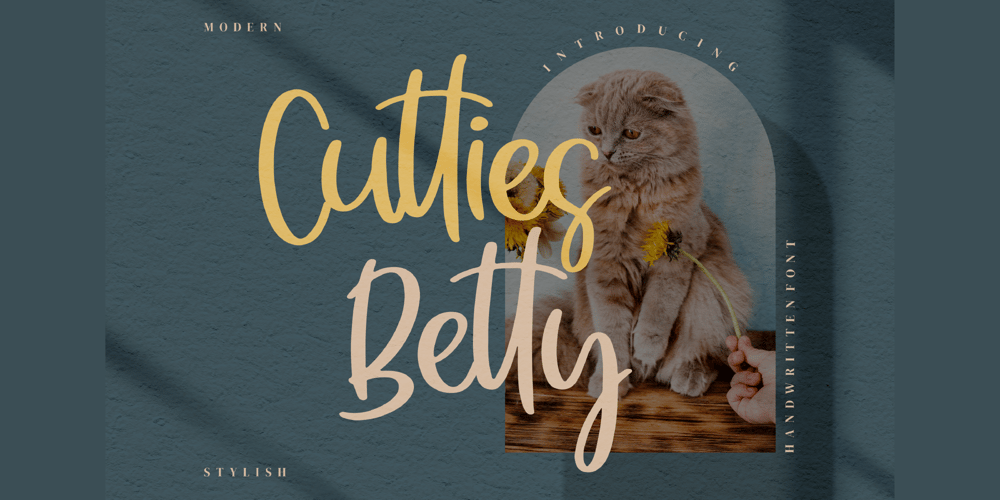
Cutties Betty Font Family was designed by Dimas Alif Maulana and published by Integritype. Cutties Betty contains 2 styles and family package options. Cutties Betty is a composed and flexible script font. Whatever the topic, this font will be a wonderful asset to your font library, as it has the potential to enhance any creation.